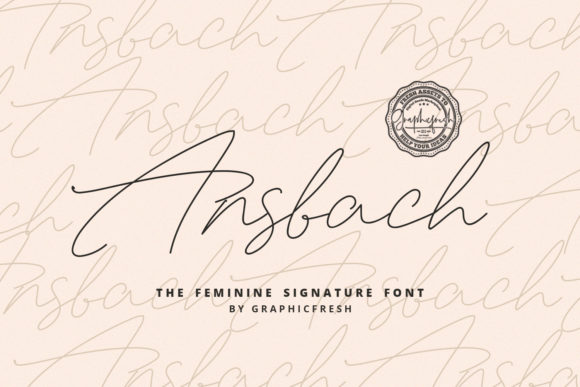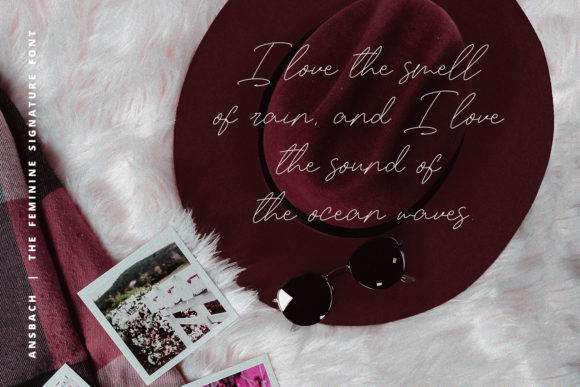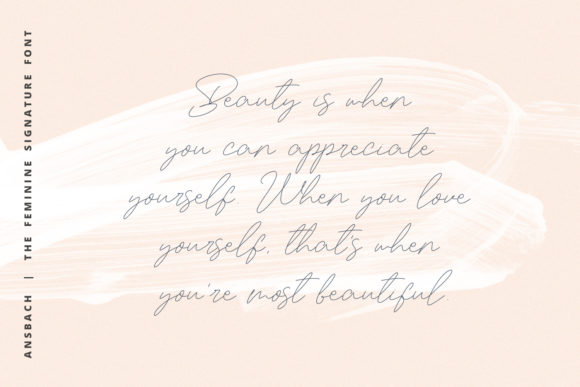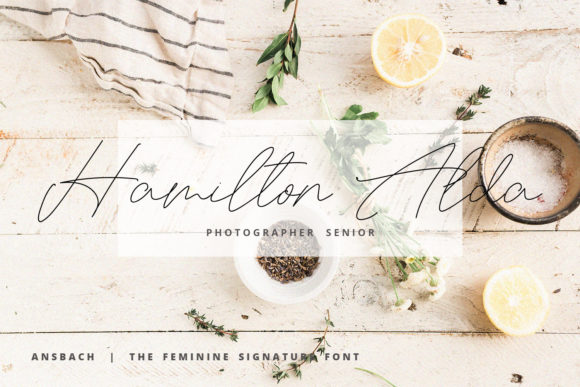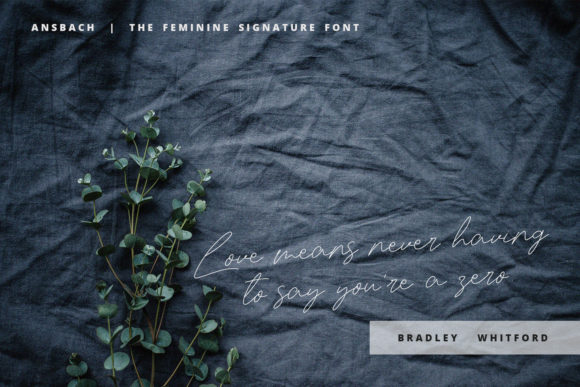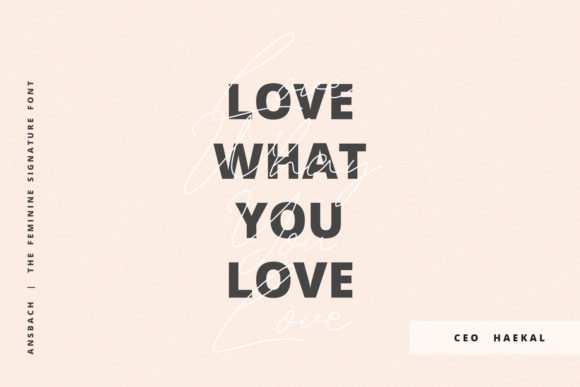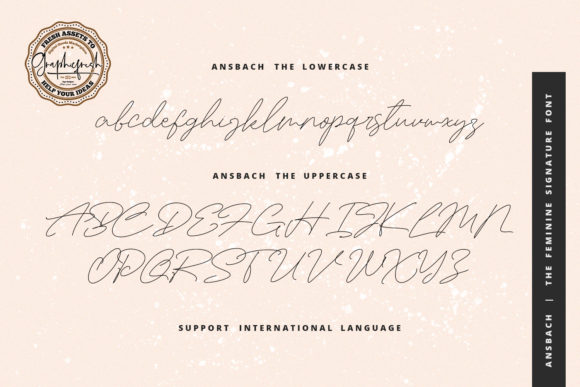
Ansbach Font
About Ansbach Font
Ansbach is a light and casual handwritten font with an effortless style. Use it to add a simple and elegant flavour to any design project.